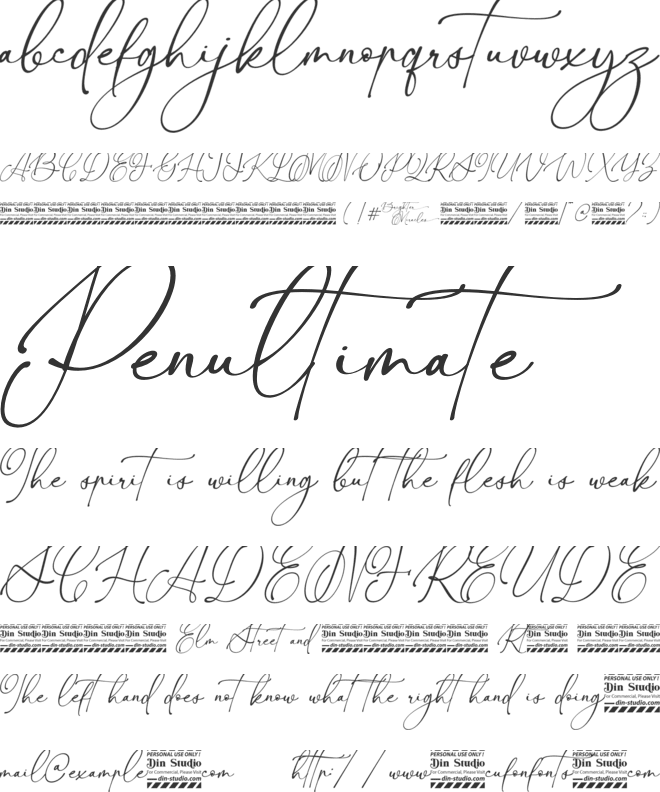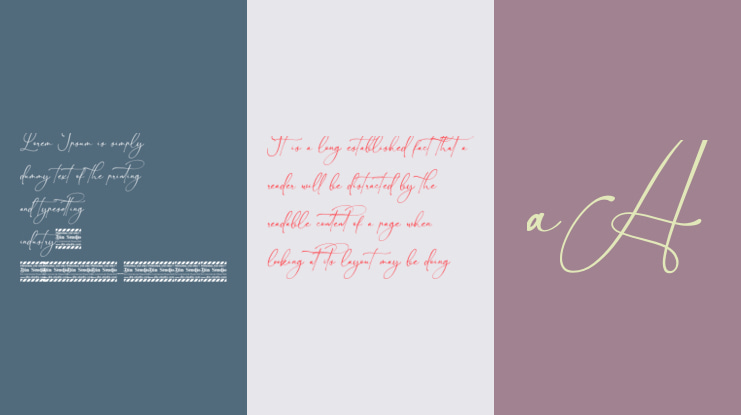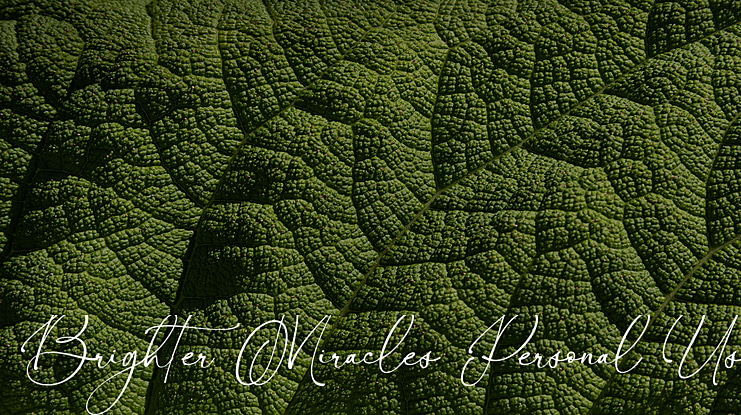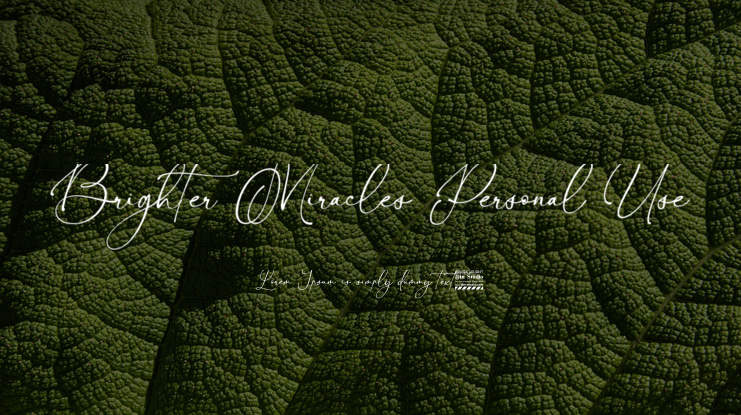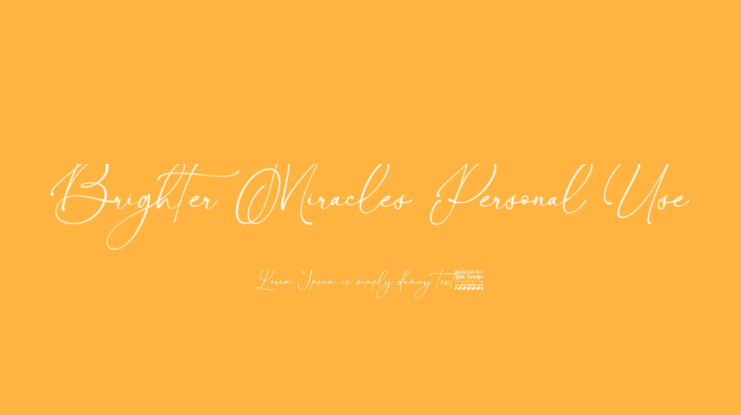
Brighter Miracles Personal Use Font
Brighter Miracles is a handcrafted font designed to bring your branding to life and add a touch of elegance, modernity and style. Perfect for social media branding projects, fashion designs, printed quotes, packaging, or even as a stylish text overlay to any background image.